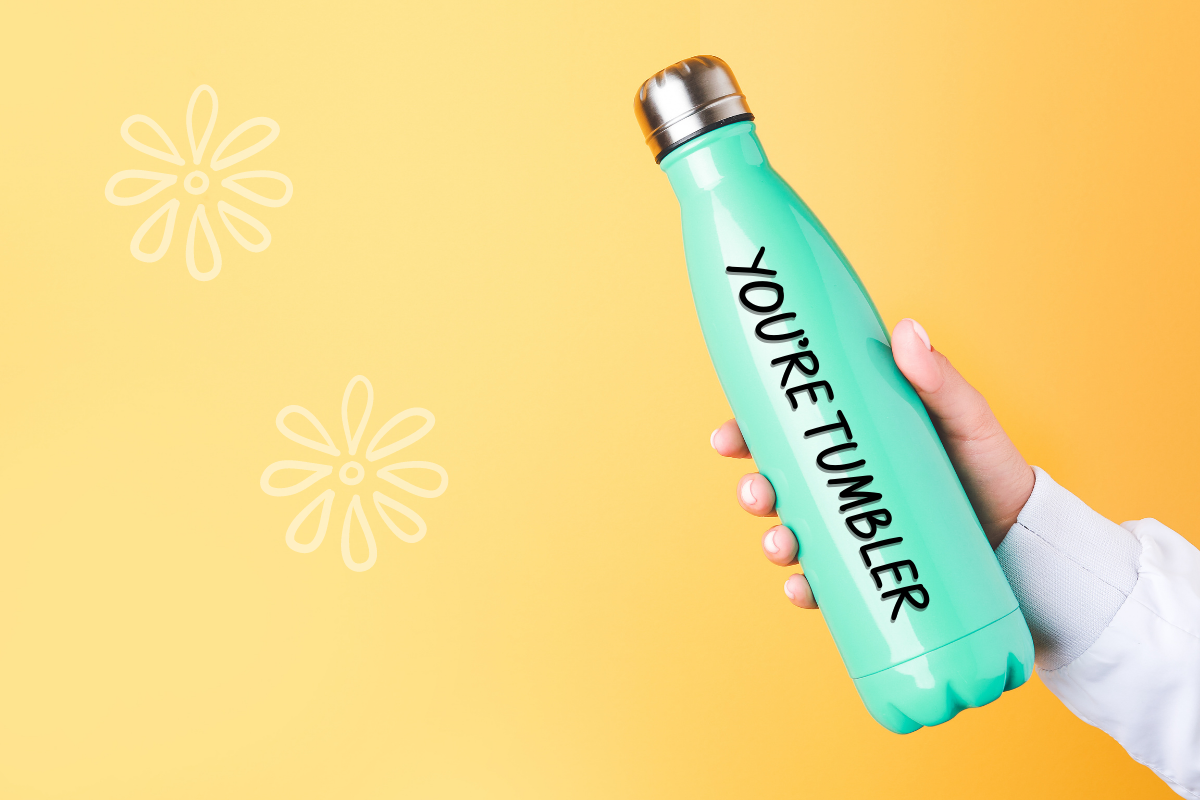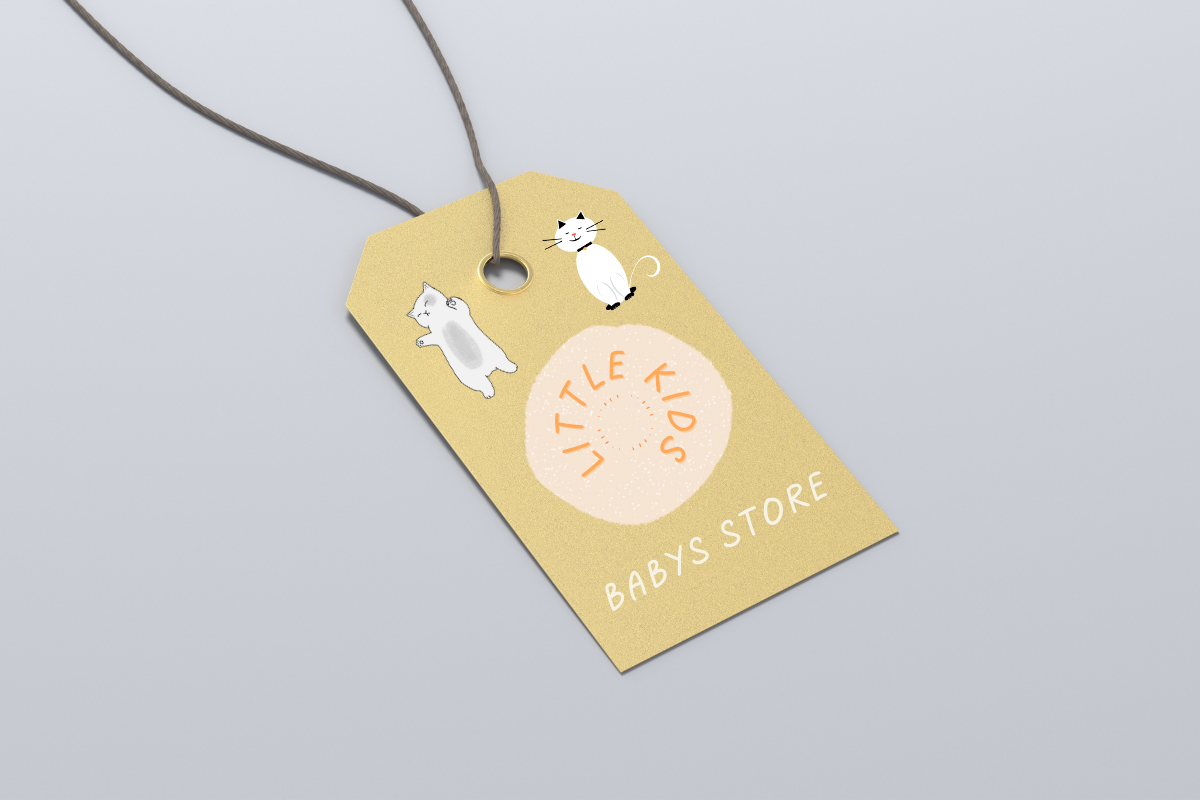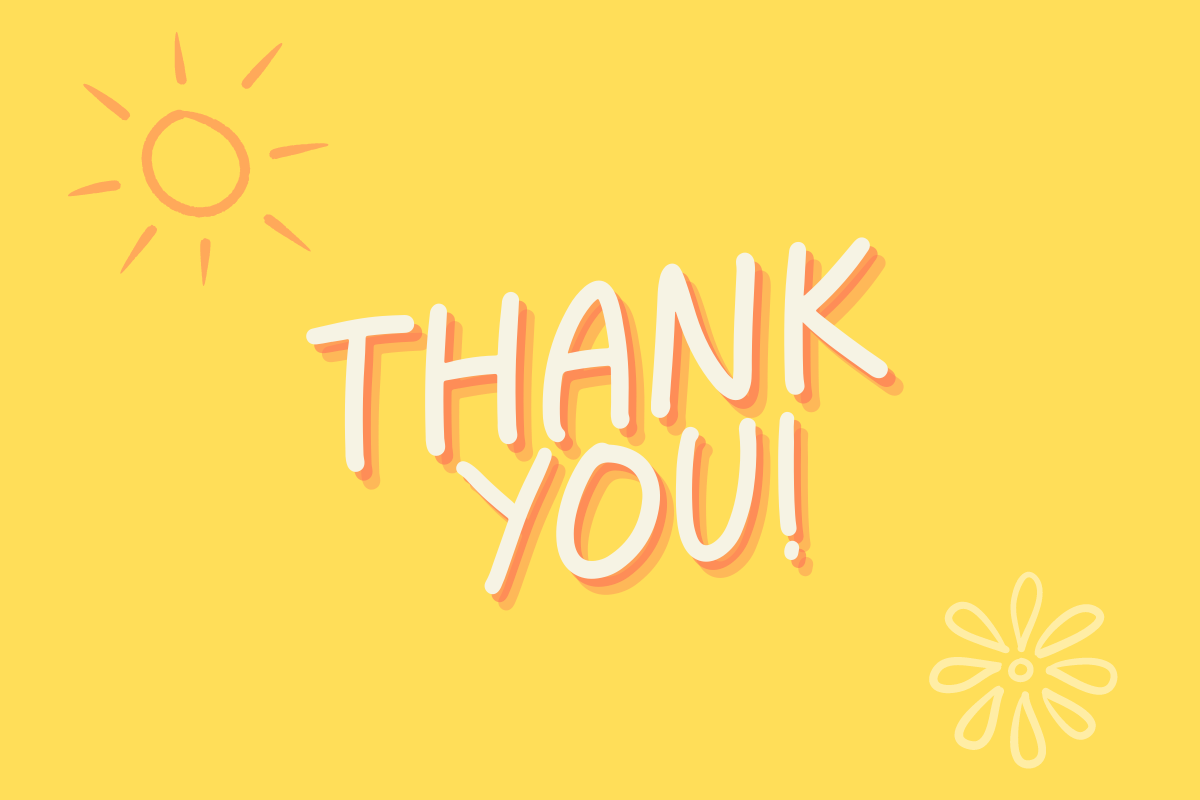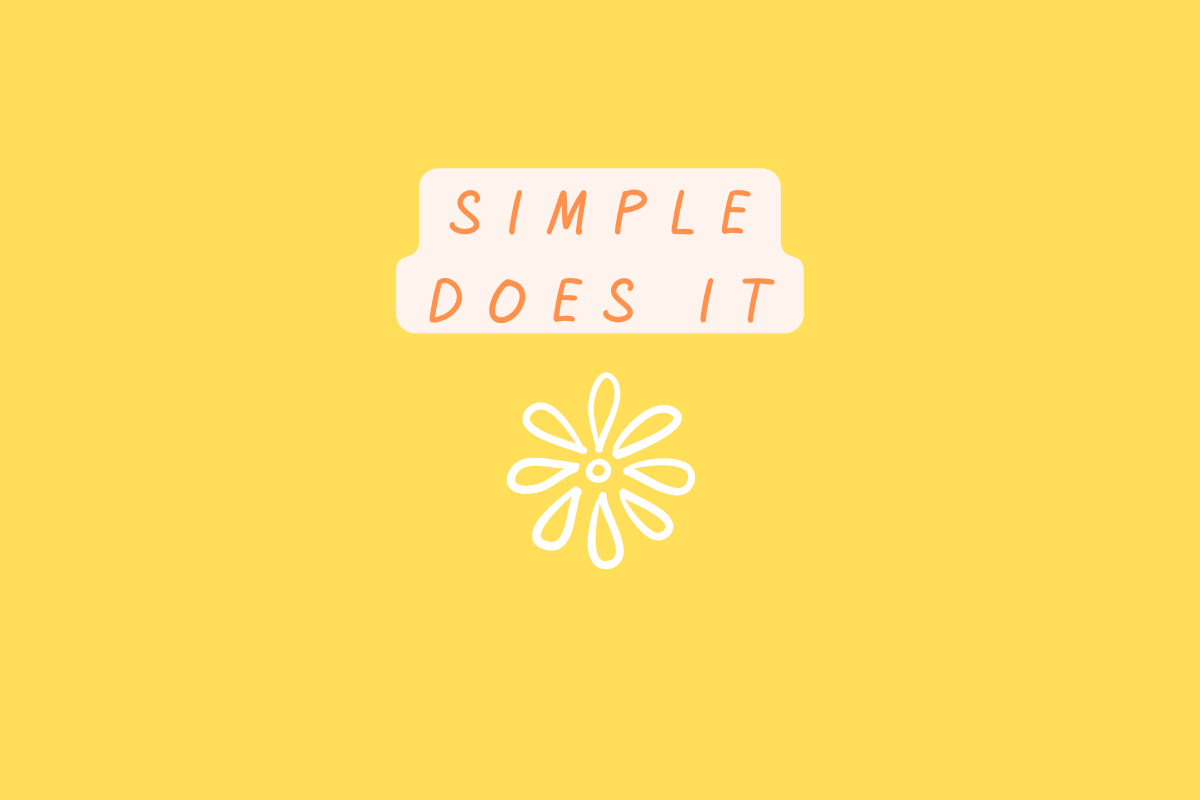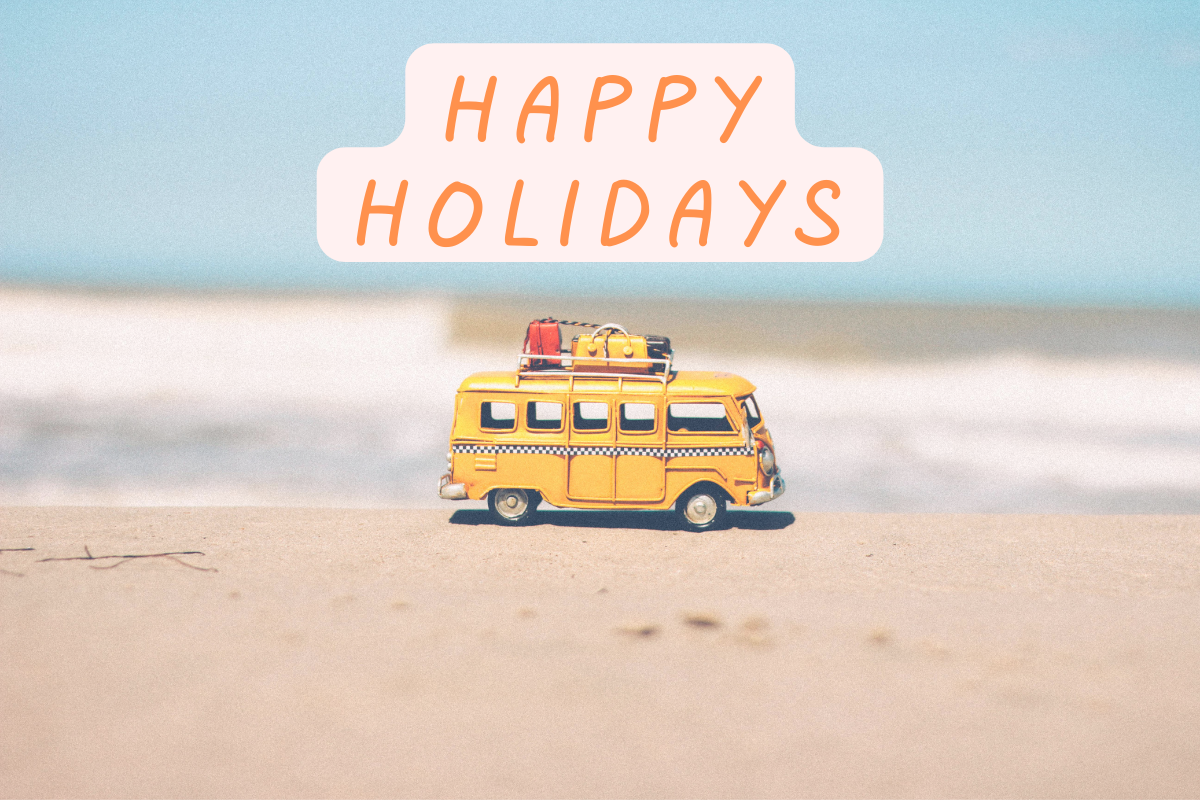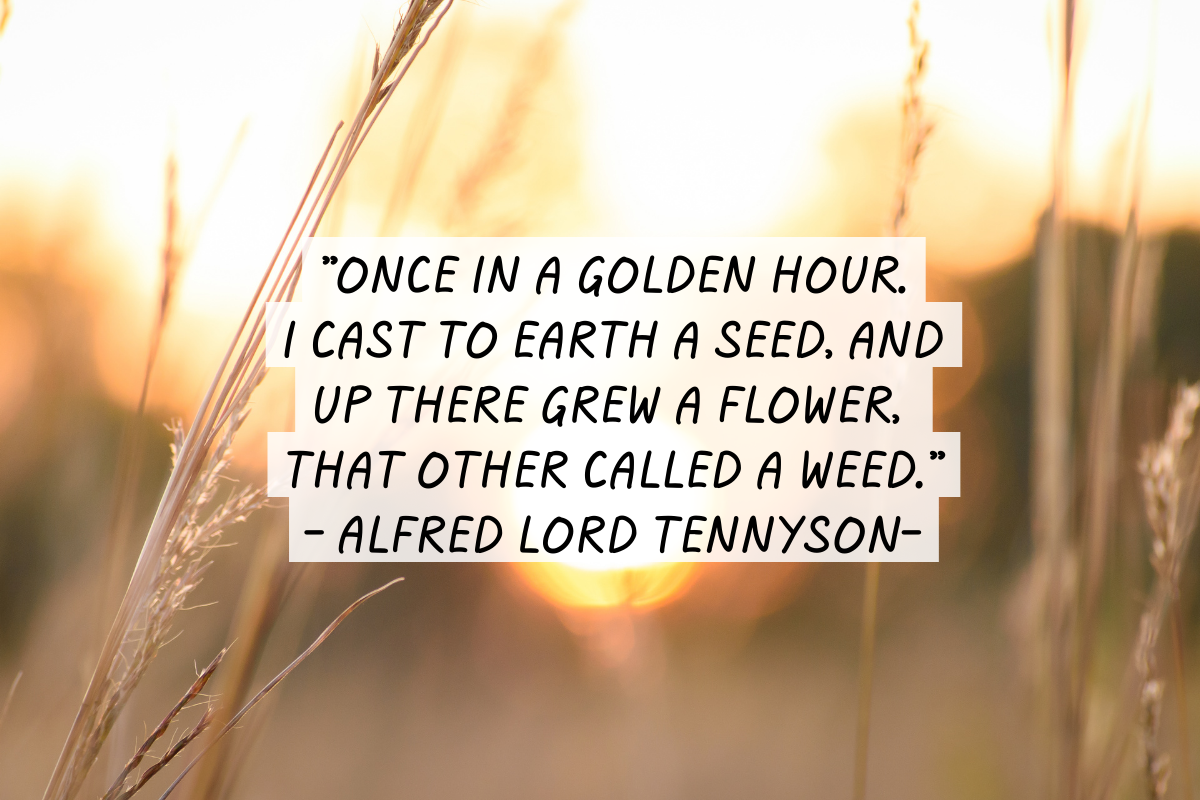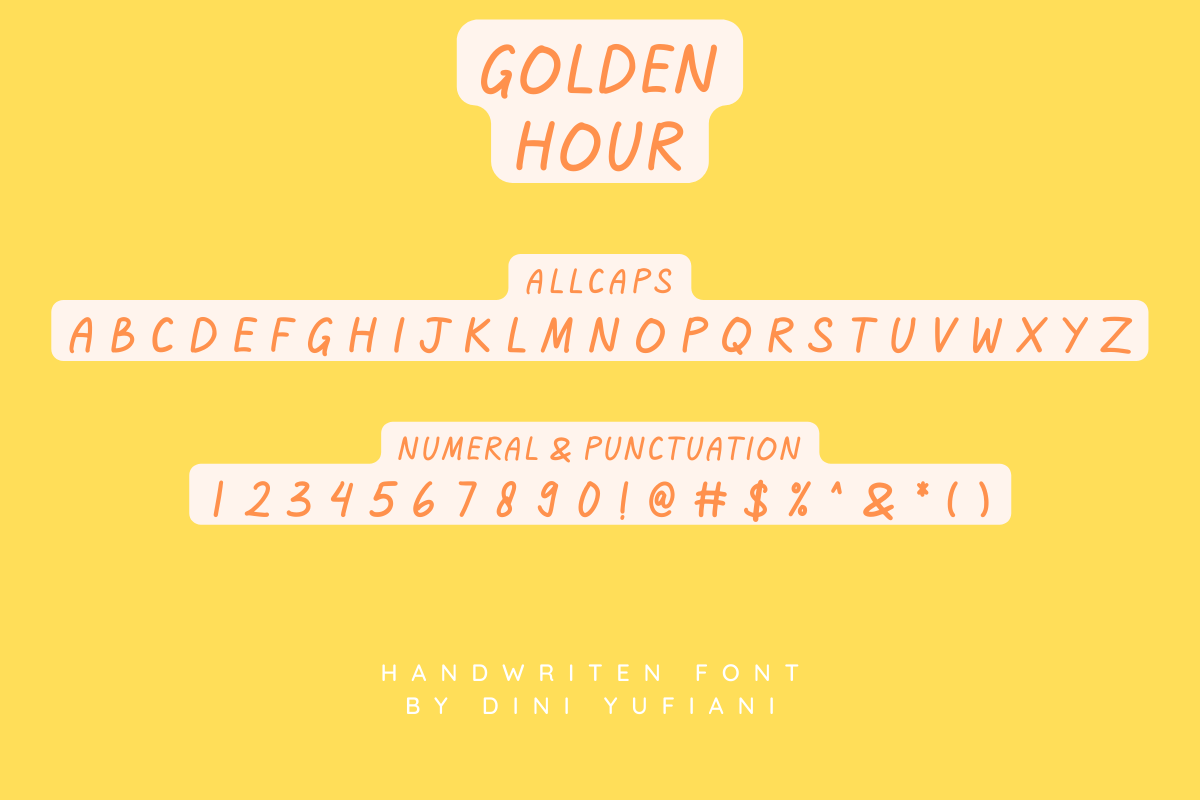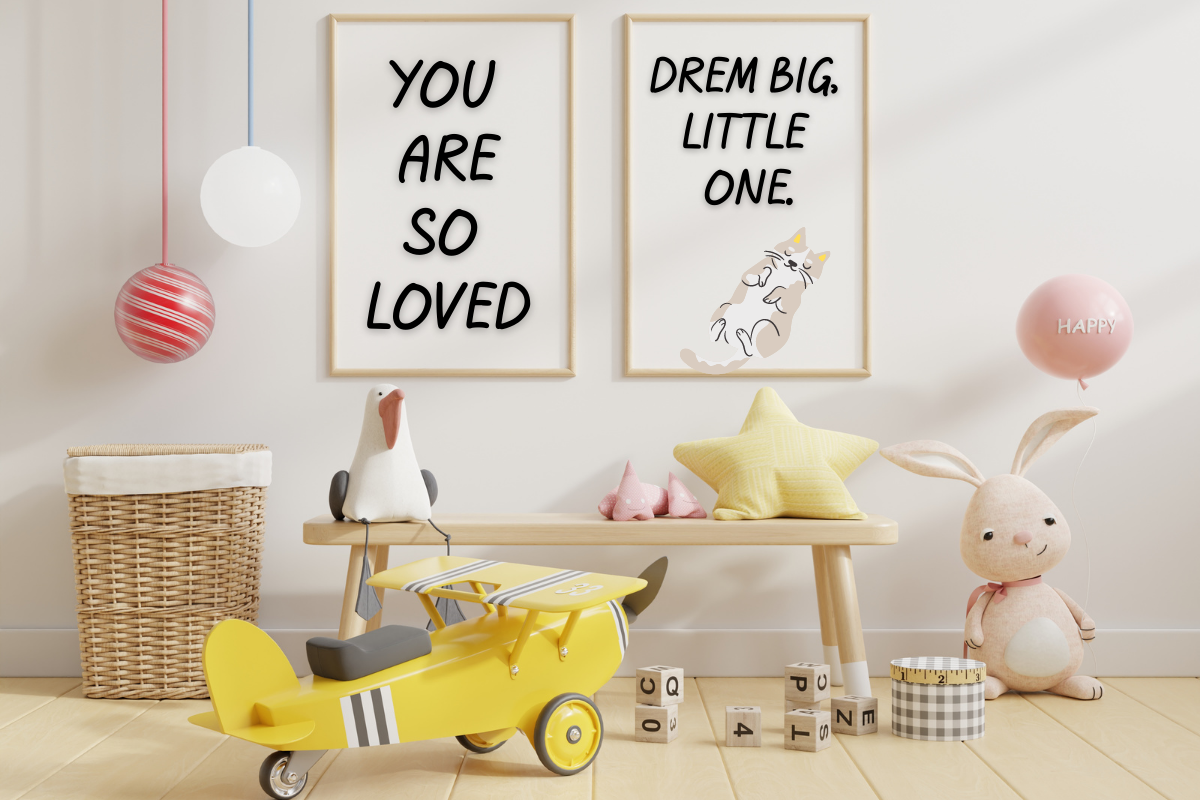
Golden Hour
This is my new font, it's called Golden Hour. This font is handwritten font. it's very suitable to be applied in your design, also it's perfect for logo, branding, title, social media post, advertisements, product packaging, product designs, label, photography, special event, web design, etc.
Golden Hour (Allcaps)
Numeral & Punctuation